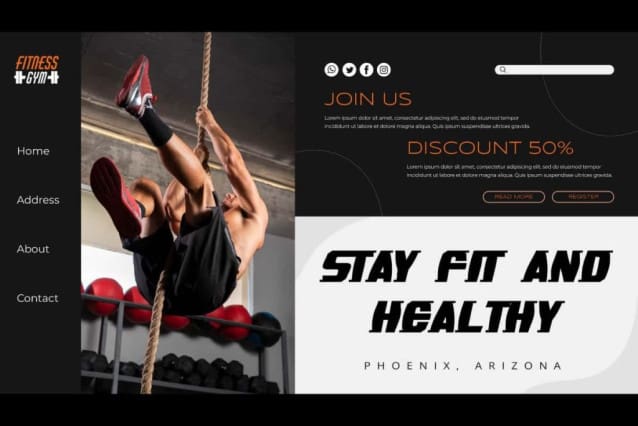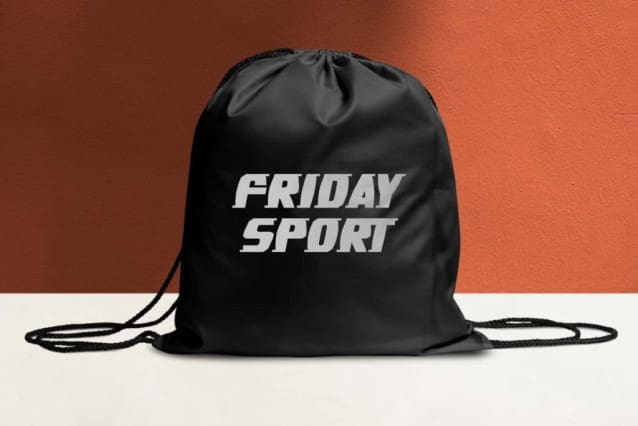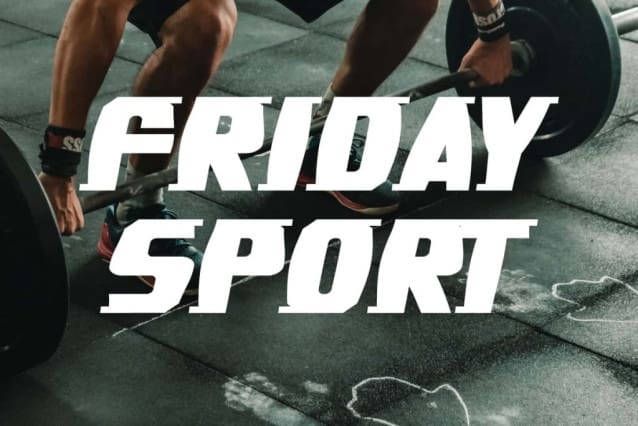
Friday Sport Font
Friday Sport Font is a fantastic speedy display font with distinctive shapes that make it stand out on anything! Ideal for attracting attention and easy to read both in digital and print forms. The font is perfect for banners, blogs, brochure, headers, headline, labels, logos, mockup, posters, sports card, t-shirt screen printing, template design, titles, websites, and more.
Friday Sport Font includes full set of ALL CAPS for Uppercase and Lowercase Basic Characters, Numbers, Punctuation, and Symbols. In terms of visual appeal, sports lettering is a font with a powerful and agile composition that will appeal to anyone who needs impactful typography. Excellent for apps, clothing brand, gaming, gym fitness, handyman services, menswear, sports, web design, workshop, etc.